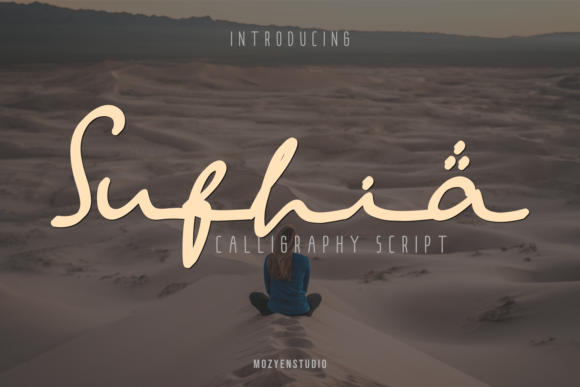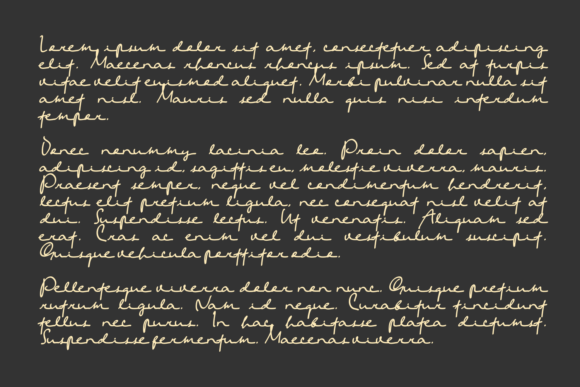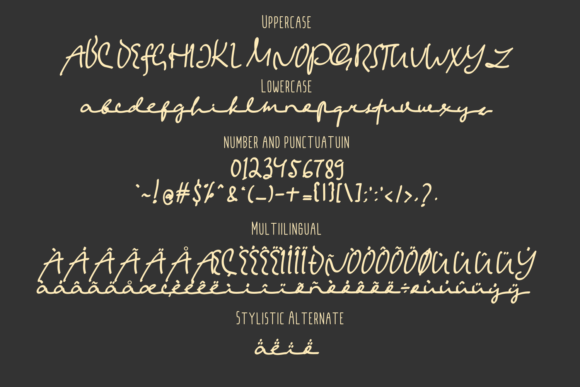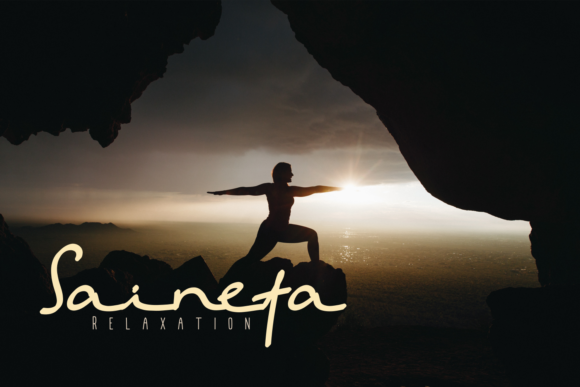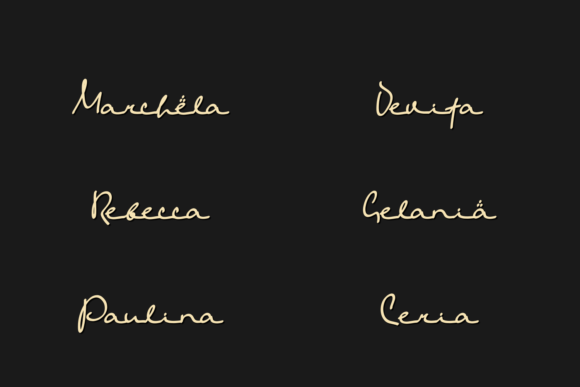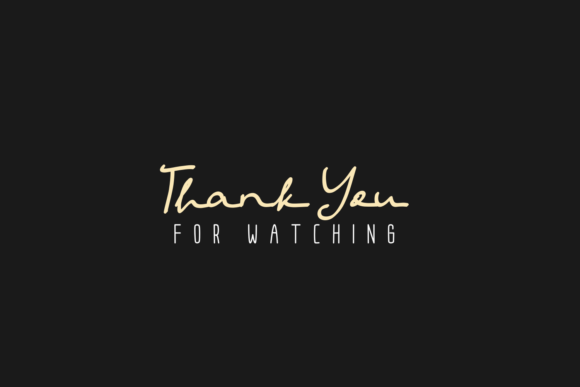
HomeScript FontsSufhia Font Script Fonts Sufhia Font FacebookXPinterestWhatsApp Sufhia Font Poster 2 Sufhia Font Poster 3 Sufhia Font Poster 4 Sufhia Font Poster 5 Sufhia Font Poster 6 About Sufhia Font Sufhia is an elegant script that’s inspired by Arabic font styles. Get inspired by its unique charm! DOWNLOAD ON CREATIVE FABRICAThis font is sold and delivered by Creative Fabrica. Font Canyon may earn a commission if you buy through this link. People also explored Obligod Extra Light Font Rachelya Font Rista Khalifa Font Baseball Font Lokomot Font Vintage Font Aubrielle Font Whipped Font Argodame Extra Light Font 307 0 TagsSufhia Font Previous articleVenomica FontNext articleBrissham Font LEAVE A REPLY Cancel reply Comment: Please enter your comment! Name:* Please enter your name here Email:* You have entered an incorrect email address! Please enter your email address here Website: Save my name, email, and website in this browser for the next time I comment. Personal Use Free 1313 Mockingbird Lane Personal Use Free Read more about this font Metal Lord Personal Use Free Read more about this font Cute Butterfly Personal Use Free Read more about this font Ennobled Pet Personal Use Free Read more about this font BLOG Free Fonts Risk: Why Free Fonts Can Be Dangerous for Designers Free Fonts Risk: Why Free Fonts Can Be Dangerous for Designers Using free fonts is a common practice in web and graphic design. However, the... Elegant Wedding Invitation Fonts – Handwritten & Script Fonts Modern Sans-Serif Fonts That Brands Love in 2025 Exploring Font Trends